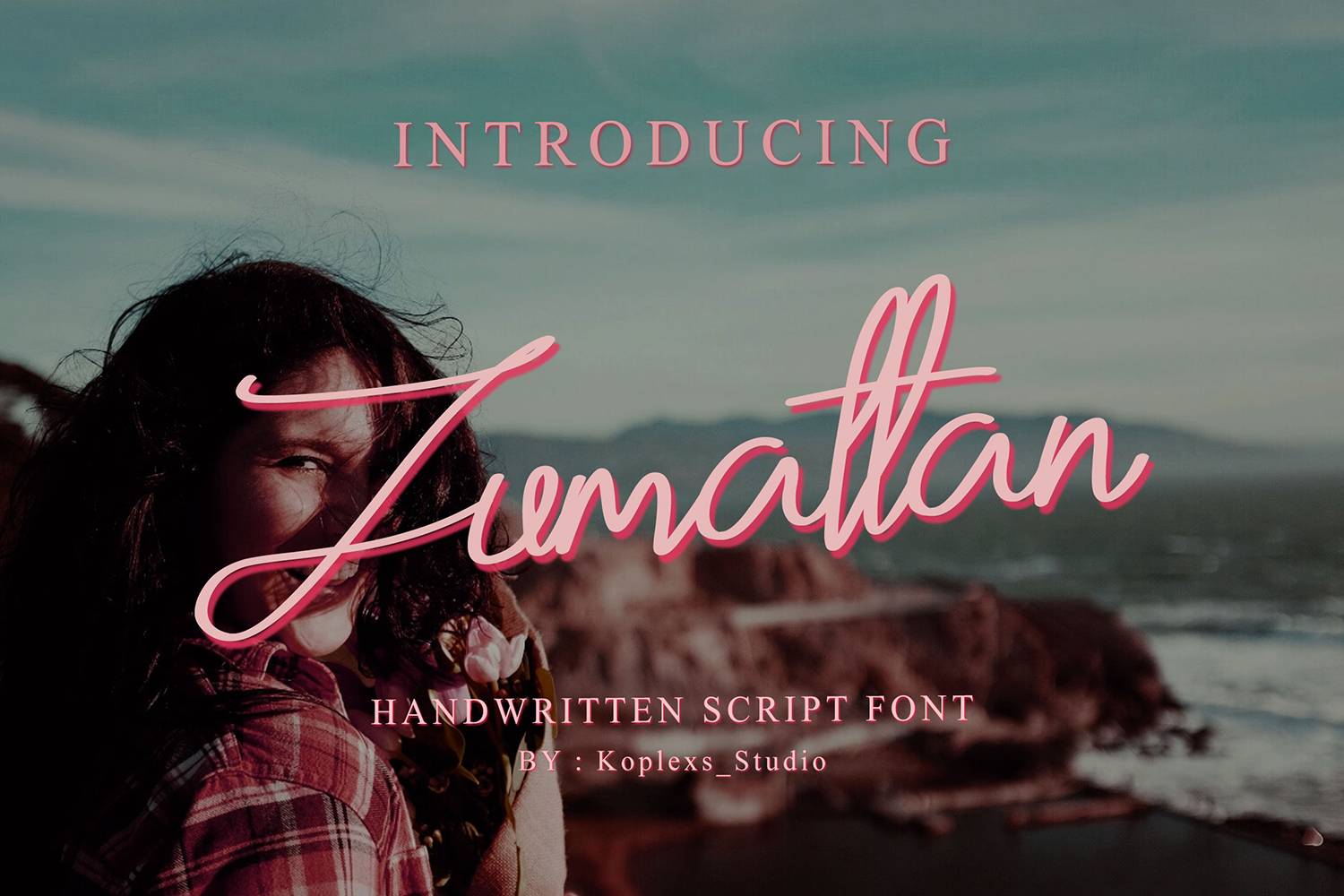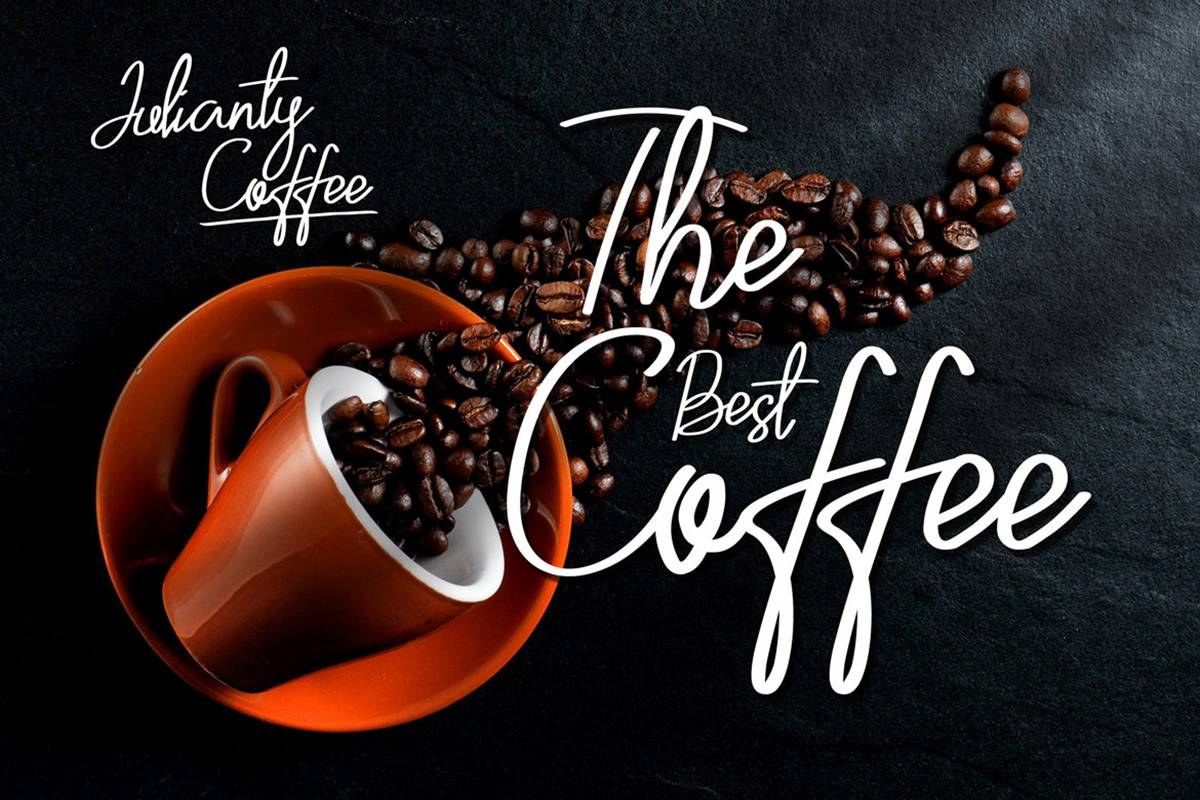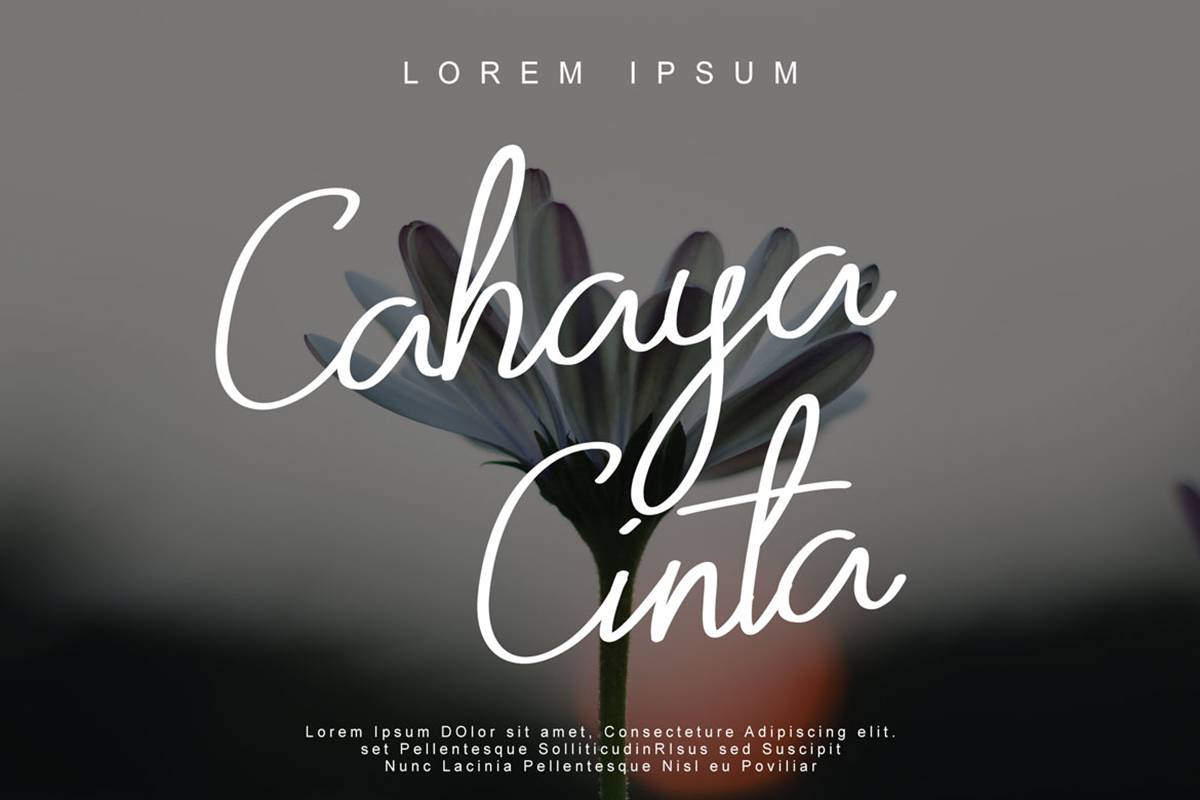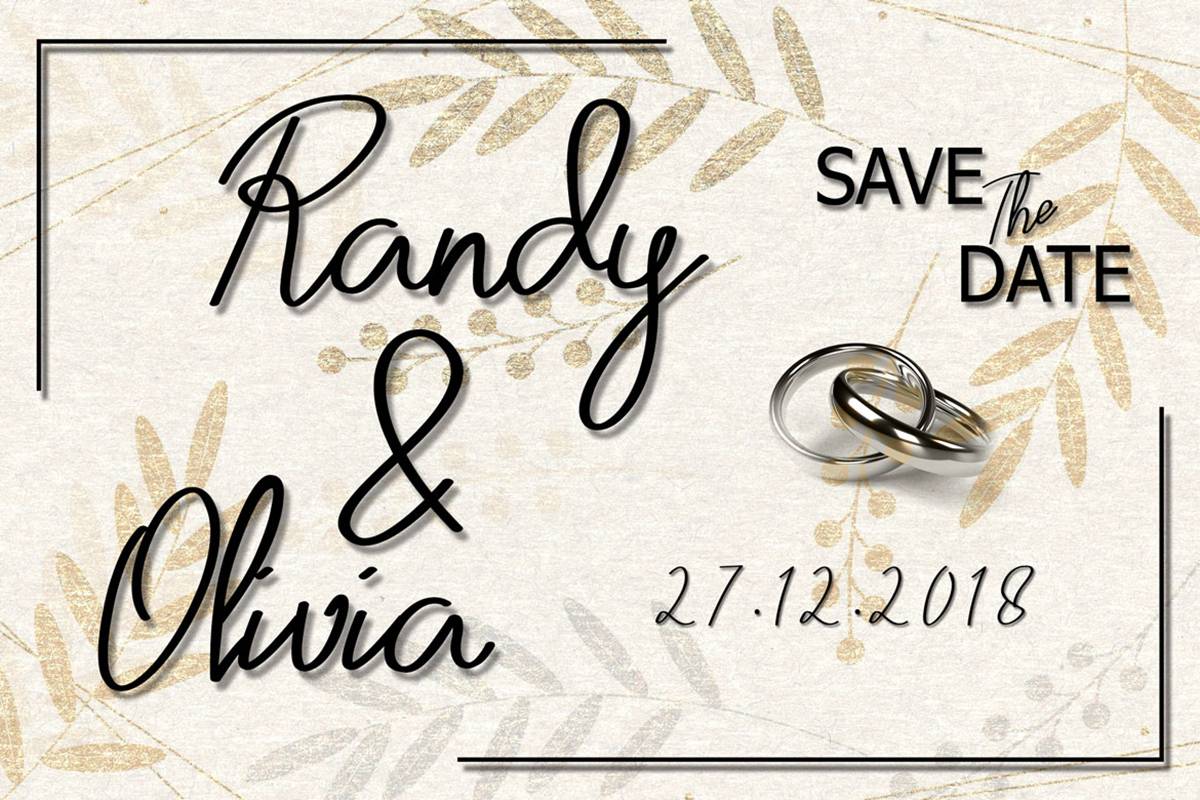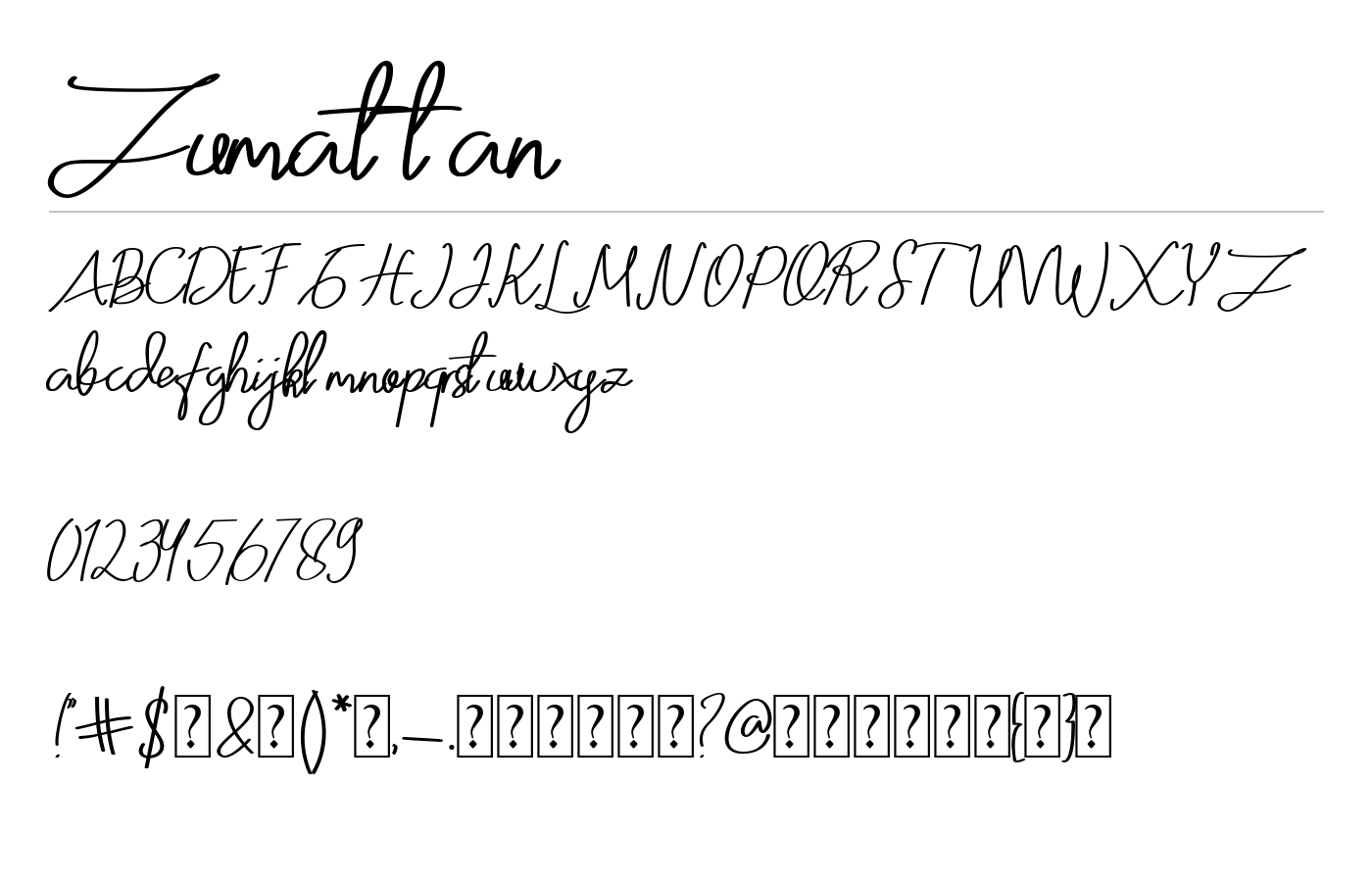
Zumattan is an elegant, delicate script font with a handwritten feel, featuring thin, fluid strokes and a graceful, slightly condensed structure. Its flowing letterforms and distinctive cursive style make it ideal for invitations, branding, and creative projects that want to convey a personal, sophisticated touch. This font works well for headlines and decorative text where a refined and artistic flair is desired.
Zumattan Font
| Designer | Ahmad Muslimin |